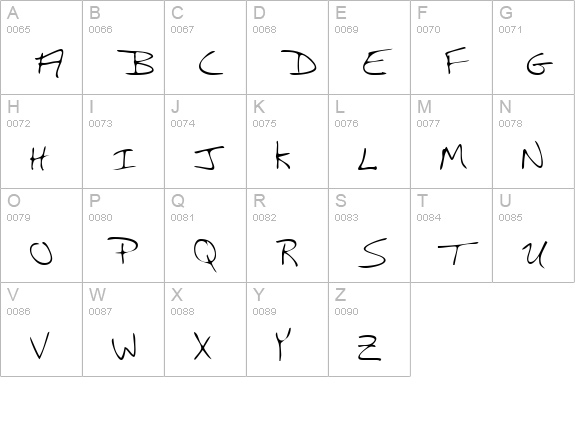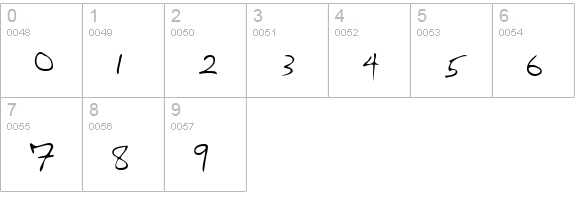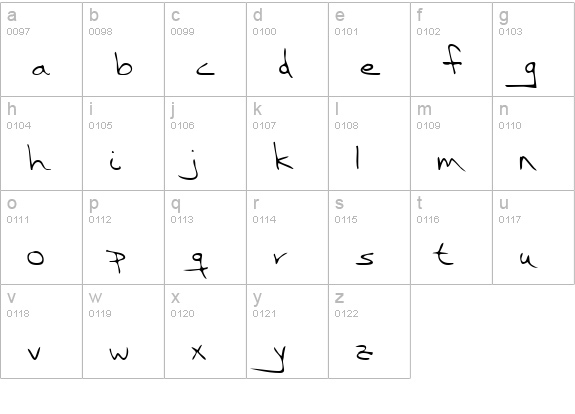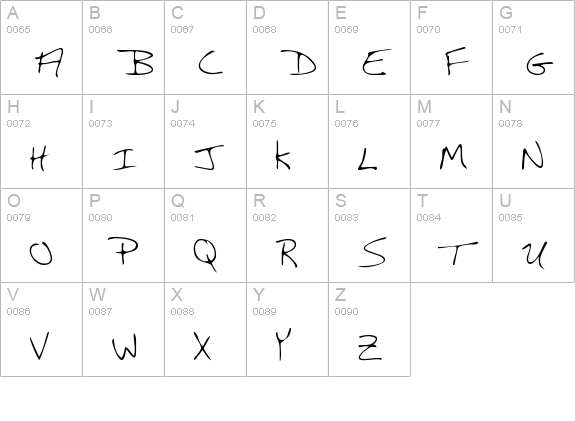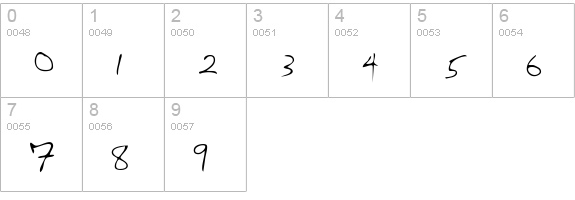
GreersHand Regular Font Details
GreersHand Regular is the standard, neutral variant in the GreersHand typeface family \xE2\x80\x94 well suited to general body text, paragraphs, and standard typographic work.
GreersHand Regular is a charming and versatile handwritten font that exudes a sense of warmth and friendliness. With its flowing strokes and casual style, this font is perfect for adding a personal touch to your projects. Whether you're designing greeting cards, invitations, or social media graphics, GreersHand Regular will bring a unique and playful vibe to your work. The best part is that GreersHand Regular is available for free download at FontsMarket.com. You can easily enhance your designs with this delightful font without any cost. So why wait? Add GreersHand Regular to your font collection today and let your creativity shine!